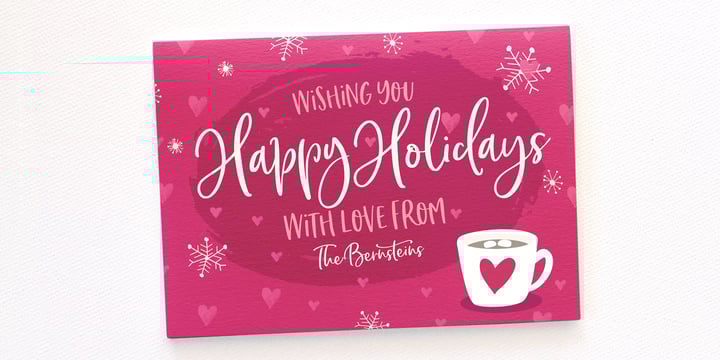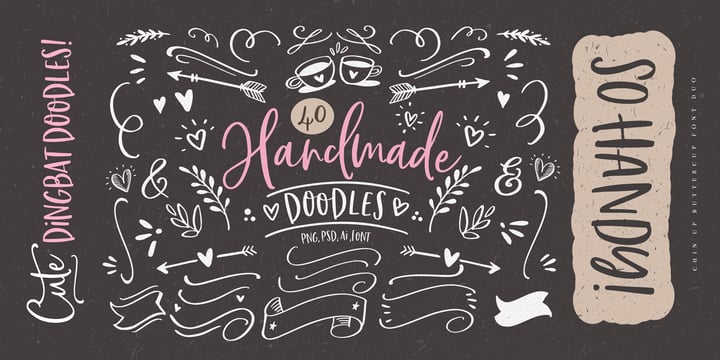
Chin Up Buttercup
Chin Up Buttercup by Nicky Laatz
Chin Up Buttercup Font Family was designed by Nicky Laatz and published by Nicky Laatz. Chin Up Buttercup contains 3 styles and family package options. More about this family
About Chin Up Buttercup Font Family
Introducing Chin up! Buttercup! A Perfectly Playful new font pair with a handy doodle font consisting of 40 complimentary Illustrations. Consisting of a Script, a Cute Sans Serif and a handy doodles font, Chin Up Buttercup are perfect companions for designing greeting cards, quotes, typographic designs, wall art, branding, packaging, websites, photo & photography overlays, signs, window art, scrapbooking, tags and so much more. The script has an alternate upper and lowercase character set, as well as a large selection of Standard Ligatures - allowing you to make your design truly unique. Not to be left out , the ‘Cutecaps’ comes with alternate characters in the uppercase set and cute little ligatures as well.
About Nicky Laatz
There is something about letters, of all shapes and forms, that has always gotten my attention, even from a young age. I remember at about 10 years old having a little novelty rubber printing press stamp kit, and an old printing specimen booklet - I was completely fascinated with them and played with them for hours on end. Making typefaces now, I often think back to them and how they might have started something. Other than fonts, I love any form of creativity , and love making beautiful things of any description - but it's creating typefaces that it my firm favourite of them all.